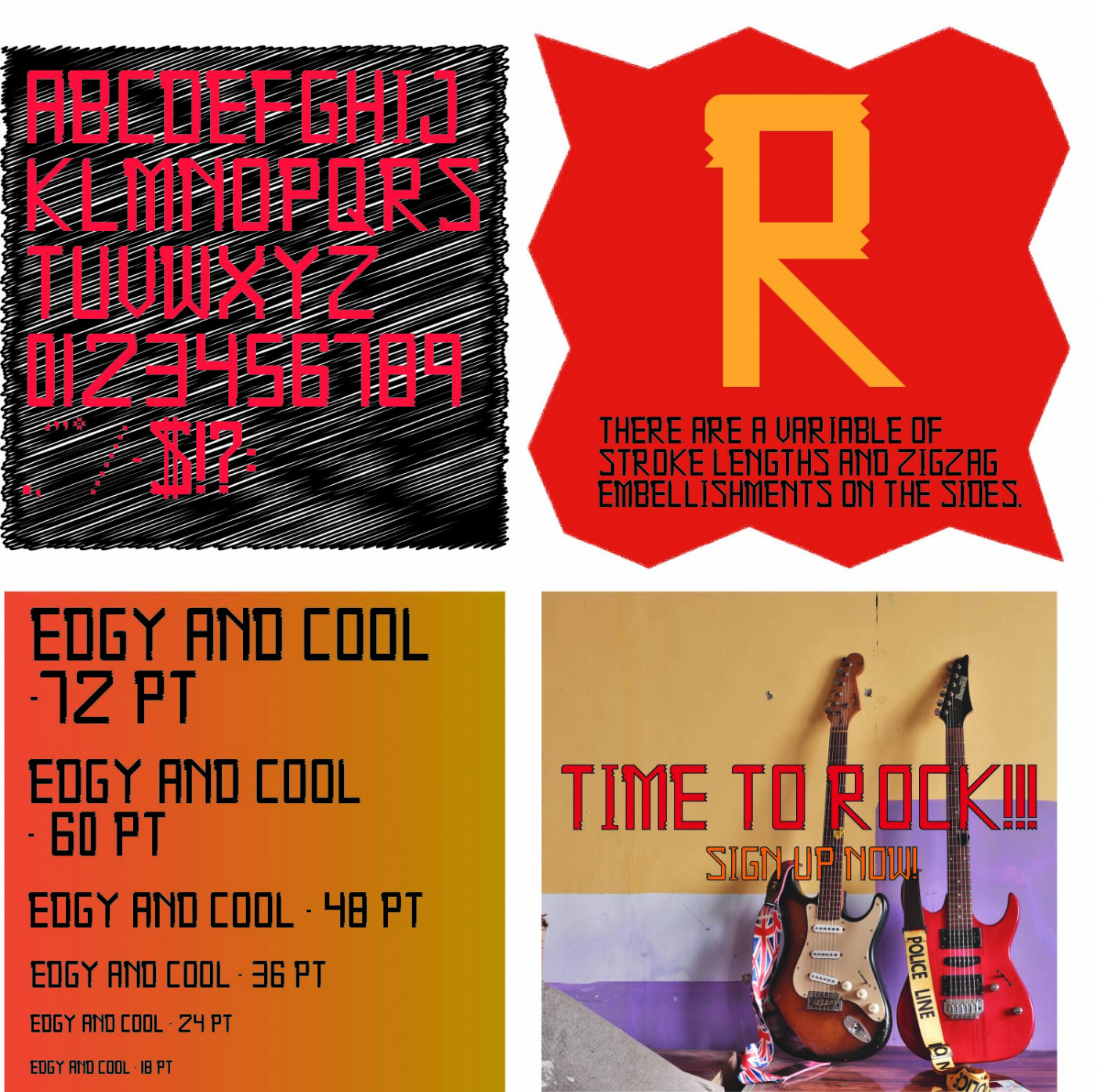
• SHATTER is a bold, all caps font that breaks the rules with its edgy, cracked design. It features no kerning, giving it a raw and unpolished look that grabs attention and makes a strong statement. Perfect for designs that need a rebellious, intense vibe. SHATTER stands out with its sharp, fractured style that feels powerful and dynamic.